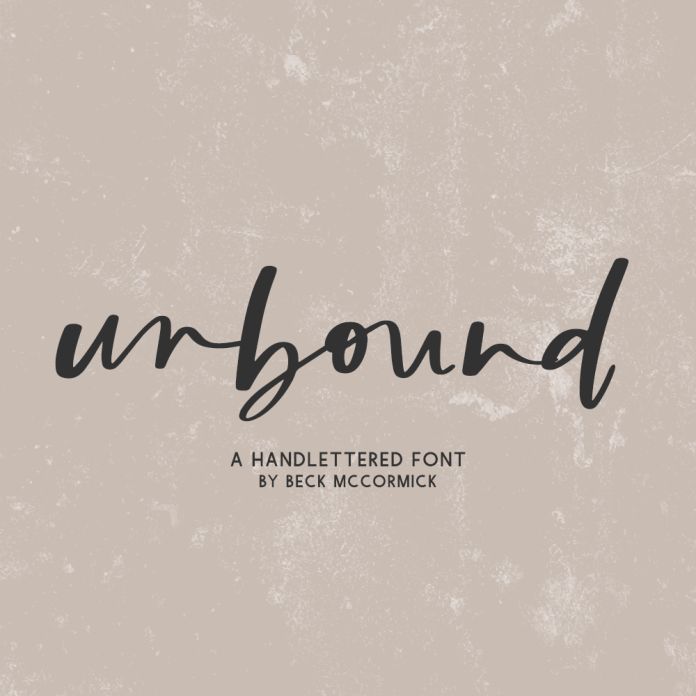
Unbound Signature Script Font
Introducing Unbound Script, a messy handwriting font. Unbound is best for: - logos + branding - website design + website accents, blog design - clean print design, like magazines + flyers - header elements that need handwritten touch - quote graphics for social media Unbound includes: - full upper + lowercase characters - numbers + punctuation - Western European Language Support - 59 ligatures - ad, ah, ak, al, am, an, ar, at, att, bb, bl, cc, ch, ck, dd, eb, ee, el, em, en, er, es, est, et, ex, ey, ff, fi, fl, fo, gg, gh, il, im, in, ir, is, it, la, le, ll, lt, mm, nn, of, om, on, oo, or, ot, ou, ow, ph, rr, ss, tt, um, un, wh - PUA-encoding